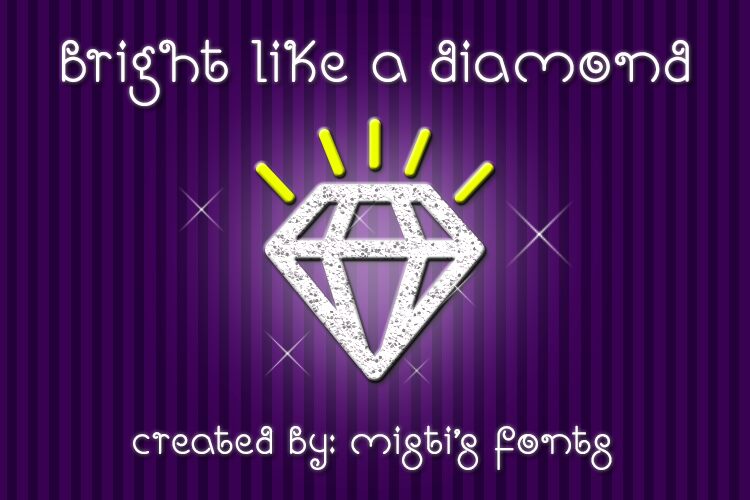
Bright Like a Diamond by Misti Hammers of Misti's Fonts is a free curly display font with slender monoline strokes and a fanciful storybook air. Spirals and tall loops give the lettering a lively, uneven silhouette.
Fairy-tale and whimsical themes make it a natural fit for children's book covers, party invitations, and theatrical posters, where the lettering can echo illustrated vines or magical flourishes. For confectionery shops, the curled strokes can become a recognizable feature on packaging and in the wider brand identity.
The Tall diamond is available as a character in the font.